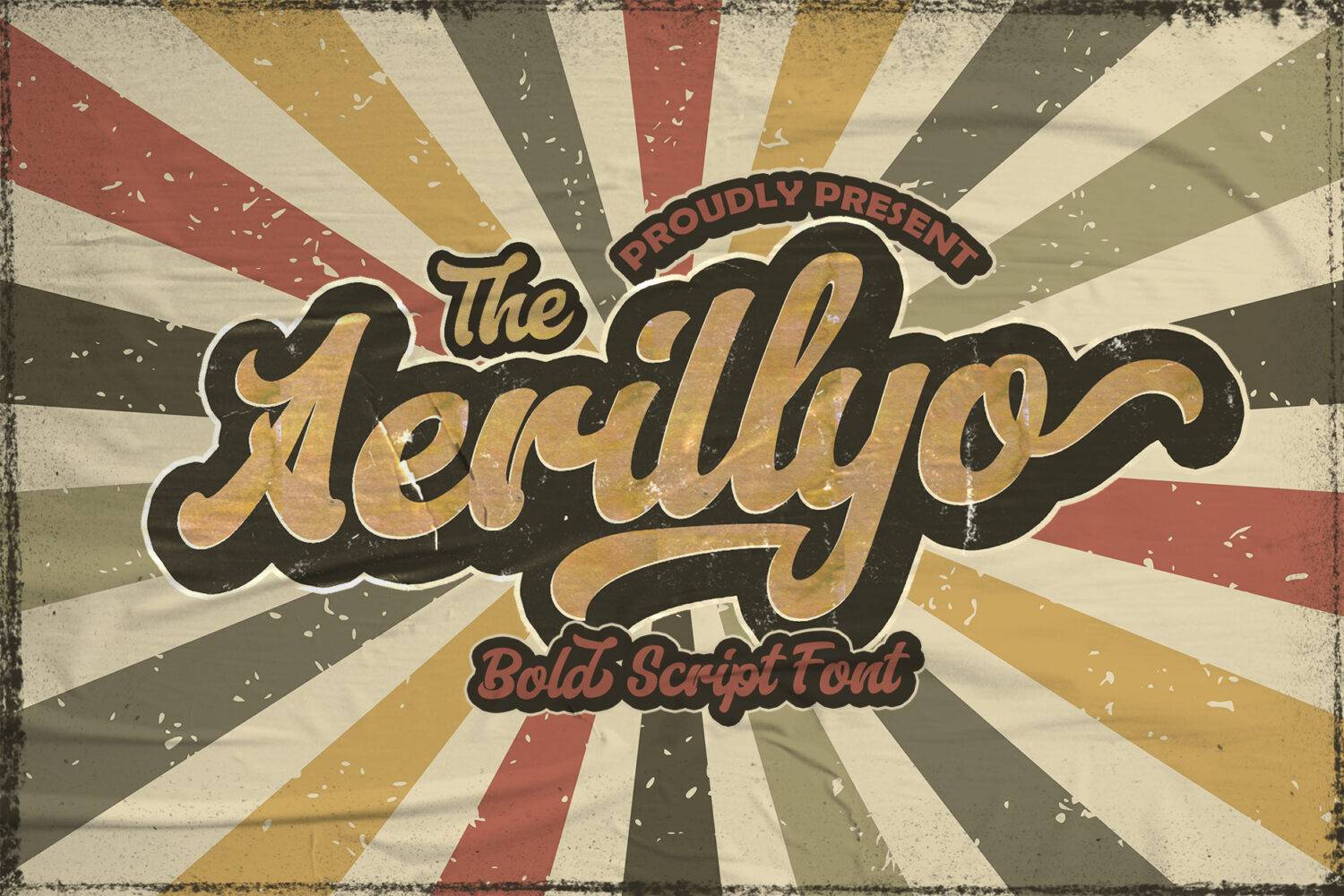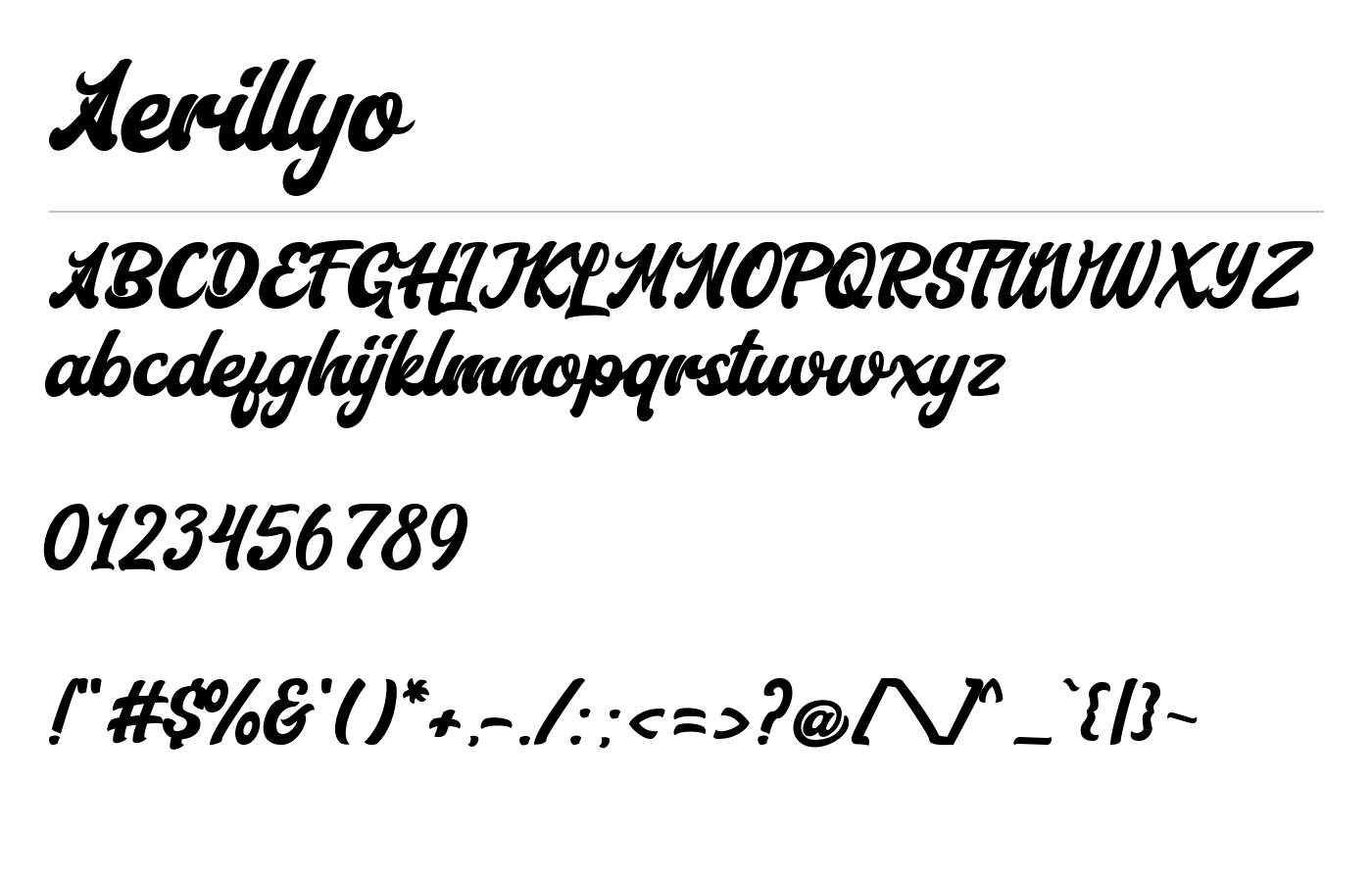
Aerillyo is a bold, cursive script font with a lively, hand-drawn feel that blends strong strokes and smooth curves for a dynamic appearance. Its moderate contrast and playful letterforms make it perfect for eye-catching headlines, logos, and branding that need a friendly yet confident touch. This font works well in fashion, packaging, and creative projects where a stylish, energetic vibe is desired.
Aerillyo Font
About Aerillyo Font
| Font family | Aerillyo Font |
| Release date | 2020-03-07 |